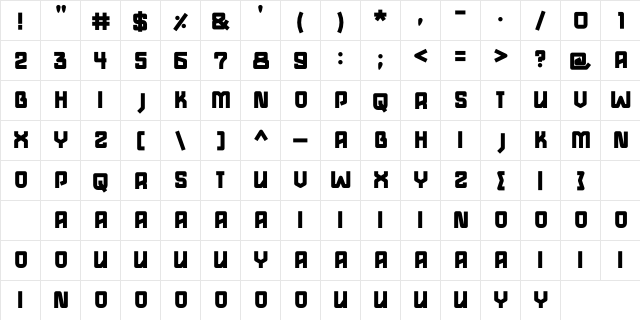
Blocker Regular
| Foundry | HighUpNorth |
| Designer | HighUpNorth |
Design Context for Blocker Typeface
Blocker is a composed and adaptable typeface that performs quietly and consistently across a wide range of design contexts.